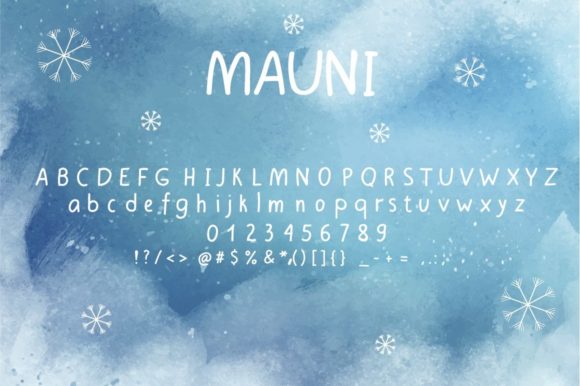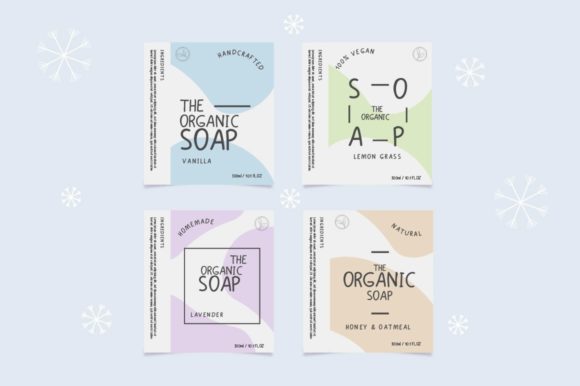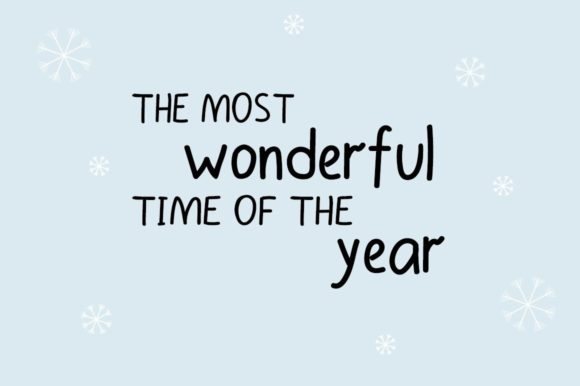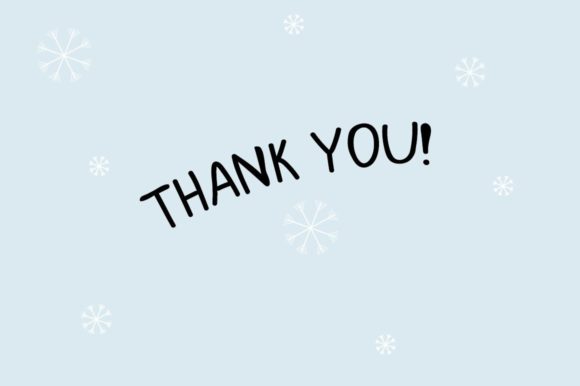
Mauni Font
About Mauni Font
Mauni is a cute and simple looking handwritten font. Whatever the topic, this font will be a wonderful asset to your font library, as it has the potential to enhance any creation.